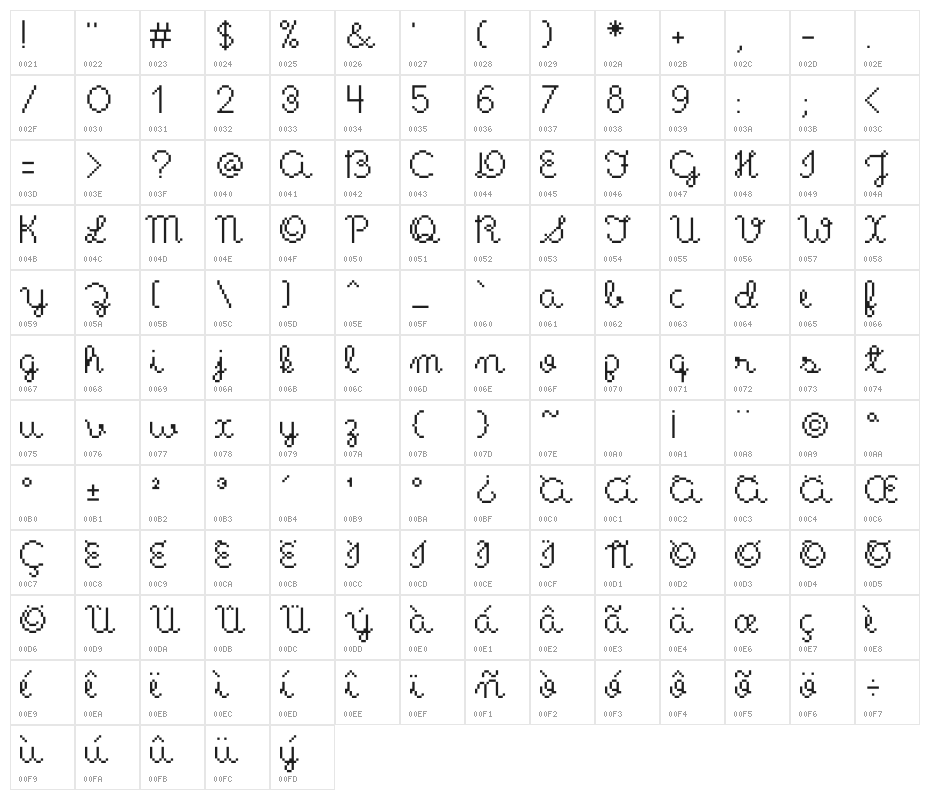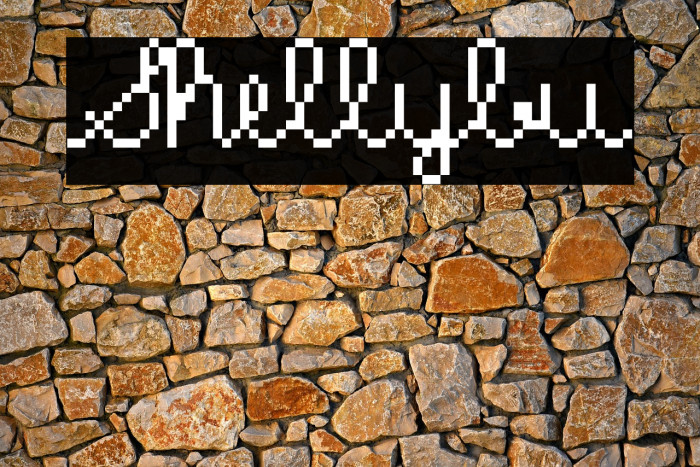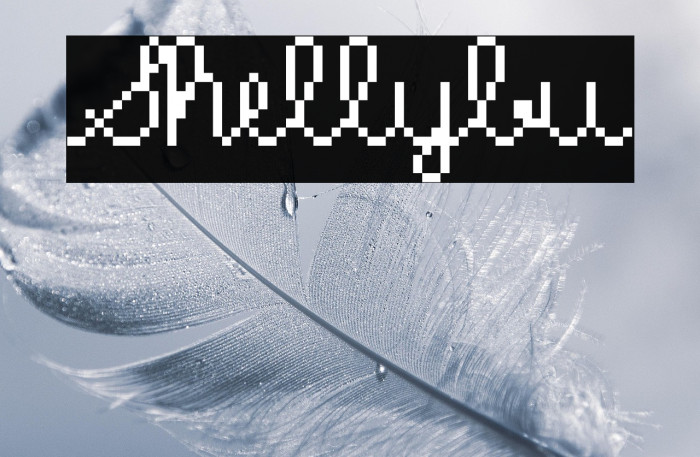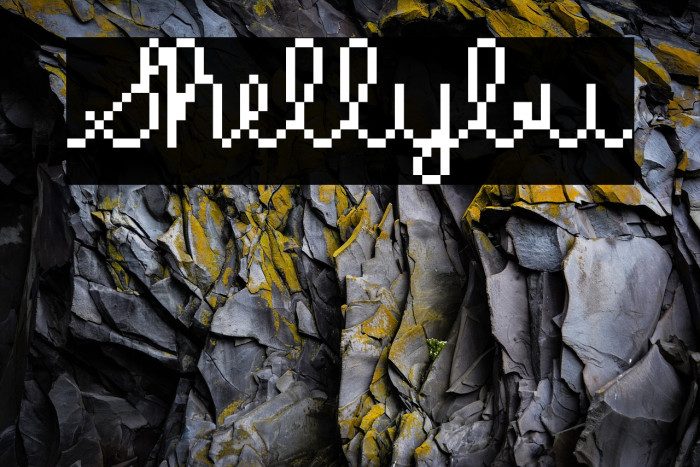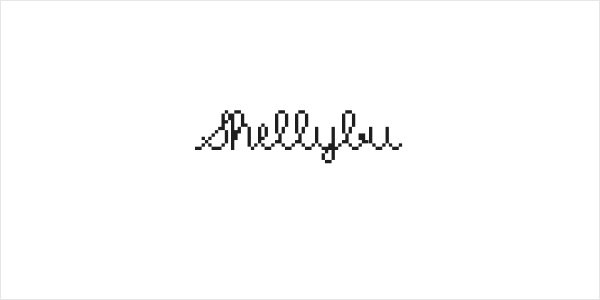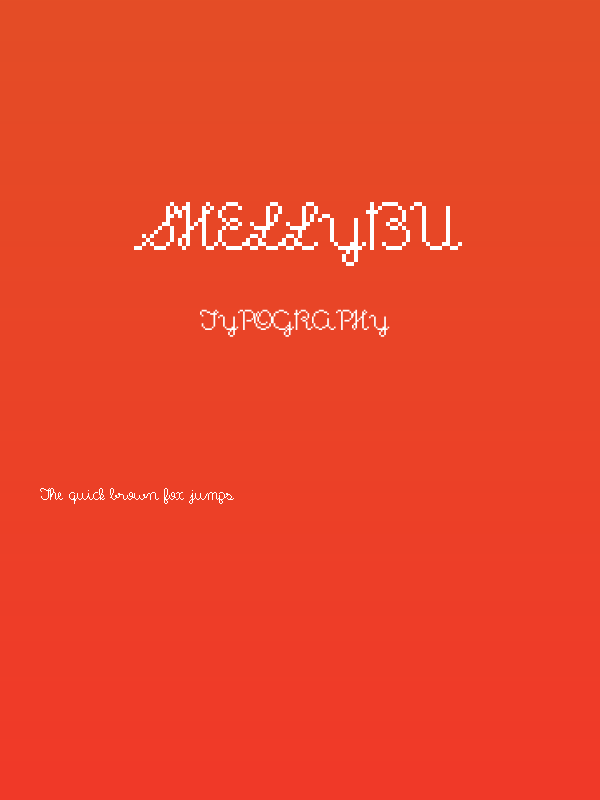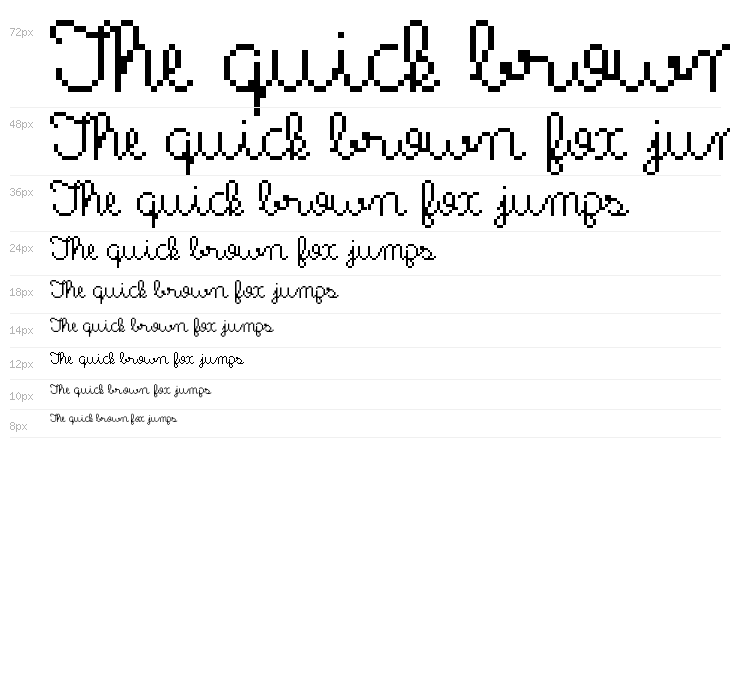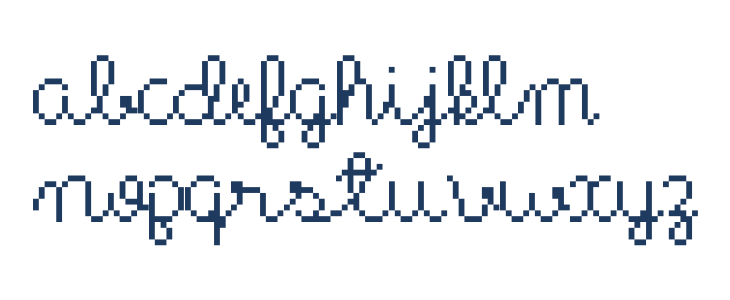
Shellybu Font
Shellybu Description
This font features a pixelated, retro style reminiscent of early digital displays and video games. The characters are formed with a grid-like structure, giving them a blocky and geometric appearance. Uppercase and lowercase letters maintain a consistent height, while numbers and special characters follow the same pixelated theme. The font's unique style is both nostalgic and playful, making it ideal for projects that aim to evoke a sense of vintage digital aesthetics. The characters are evenly spaced, ensuring readability despite the unconventional design.
| Use Case | Logos, Headlines, Digital Art |
| Proposed Projects | Ideal for retro-themed designs, video game graphics, digital art projects, and nostalgic branding. |